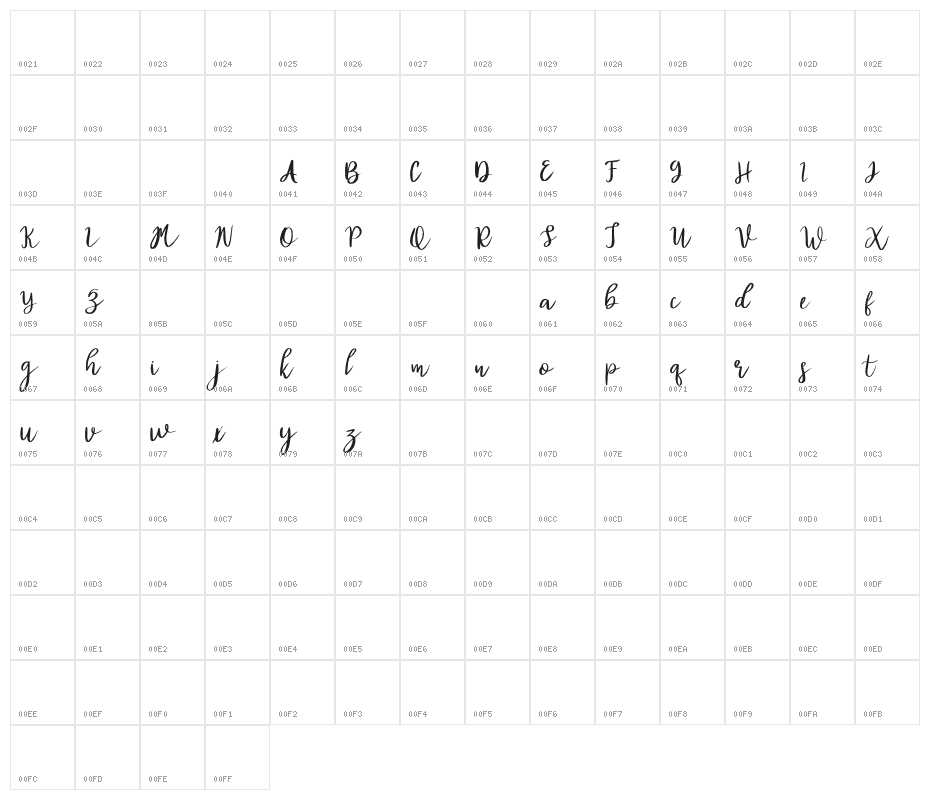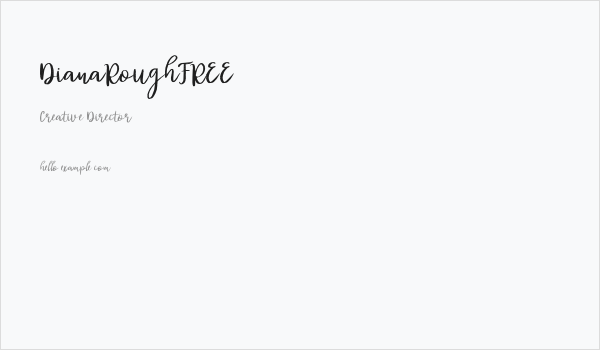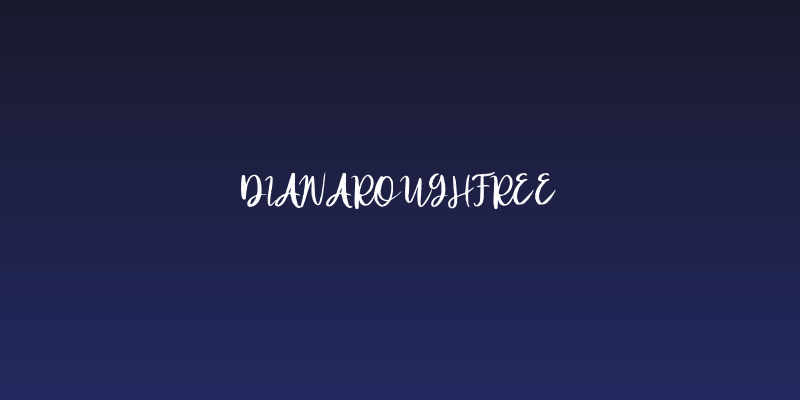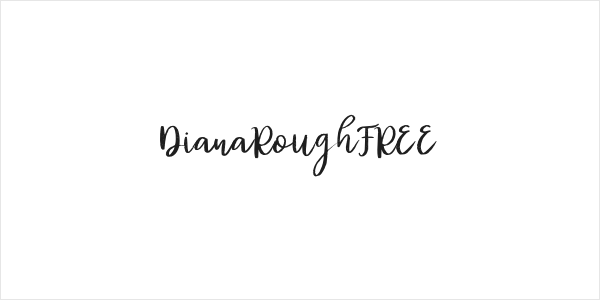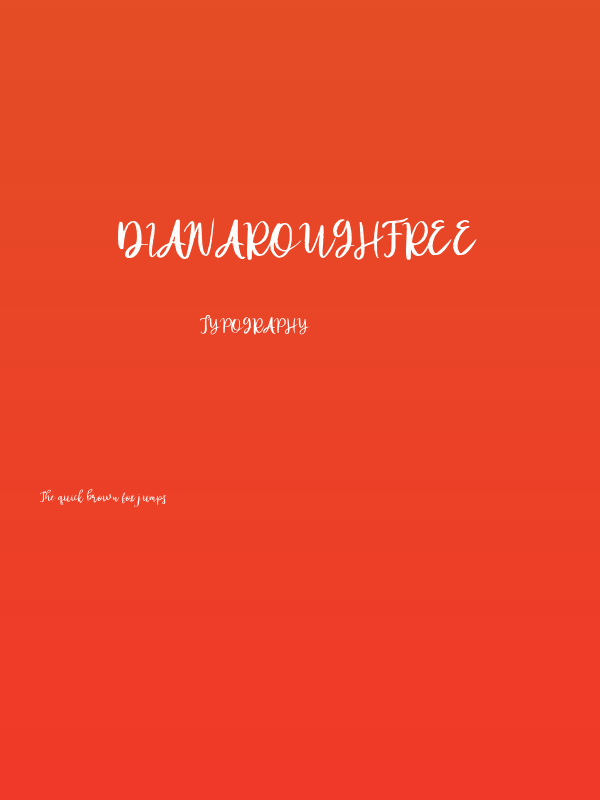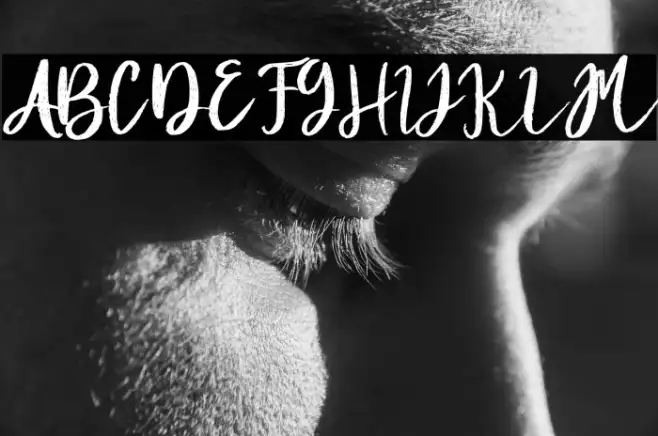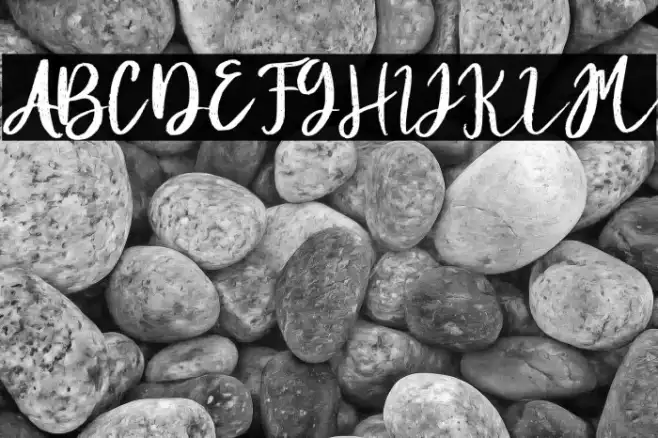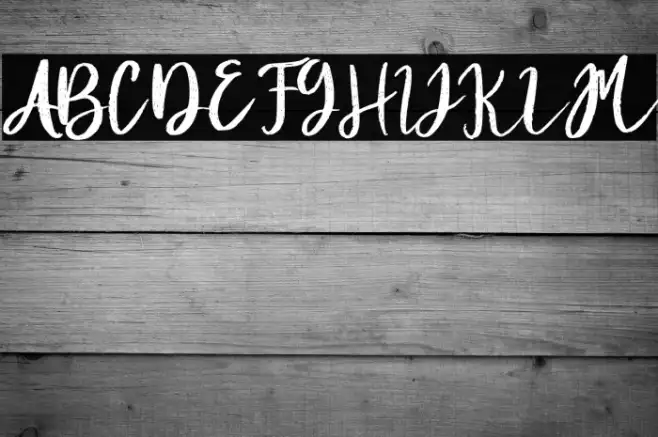
DianaRoughFREE Font
DianaRoughFREE Description
This font features a dynamic and expressive script style, characterized by its flowing, cursive letterforms that mimic the fluidity of handwriting. The strokes are bold and textured, giving a rough, hand-drawn appearance that adds a personal touch to any design. The uppercase letters are slightly more structured, while the lowercase letters exhibit a playful, free-spirited nature. The overall look is both artistic and approachable, making it suitable for creative projects that require a personal, handcrafted feel.
| Proposed Projects | Ideal for wedding invitations, greeting cards, branding projects, and any design that benefits from a personal, artistic touch. |